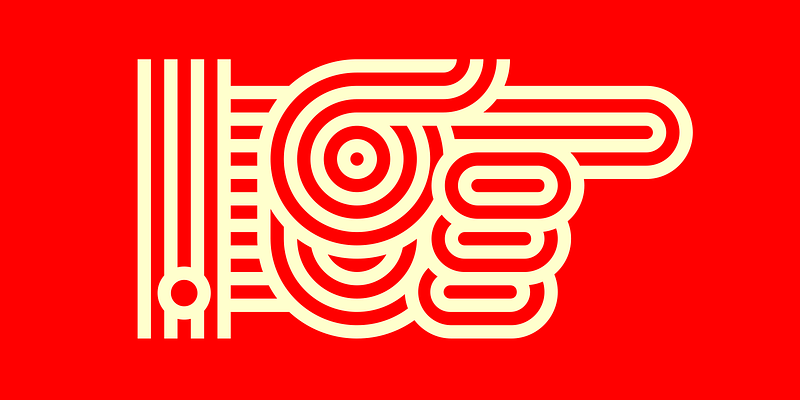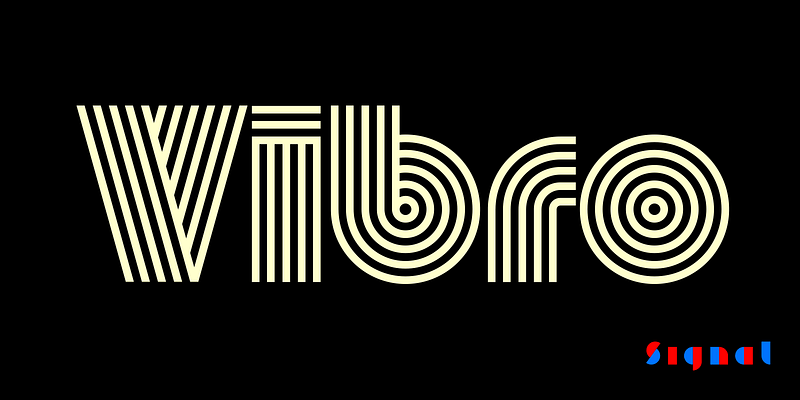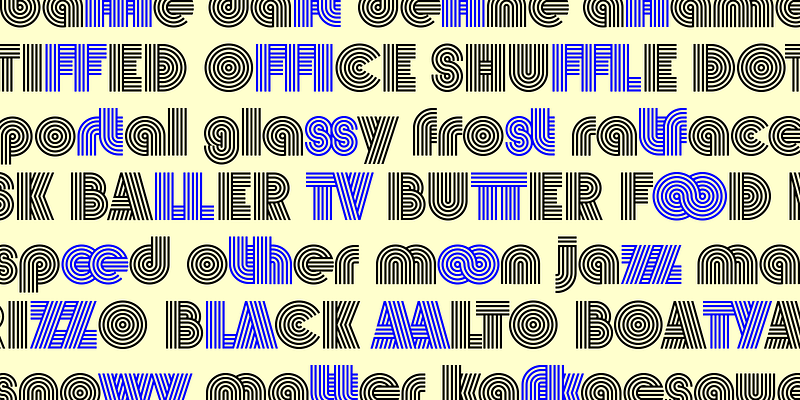
Roll over, Lance Wyman, and tell Bridget Riley the news. Designed by an old hippy for maximum dazzle, Vibro is an ice cream headache of a typeface which exploits the principles of chromatic vibration to send streams of high voltage through the viewer’s visual cortex. In the interest of greater stripiness, counters have been dispensed with. A selection of dingbats add to the ruckus. A full range of diacritics has been mortised into the bodies of the letters, enabling Vibro to trample basic standards of legibility in over 130 languages.